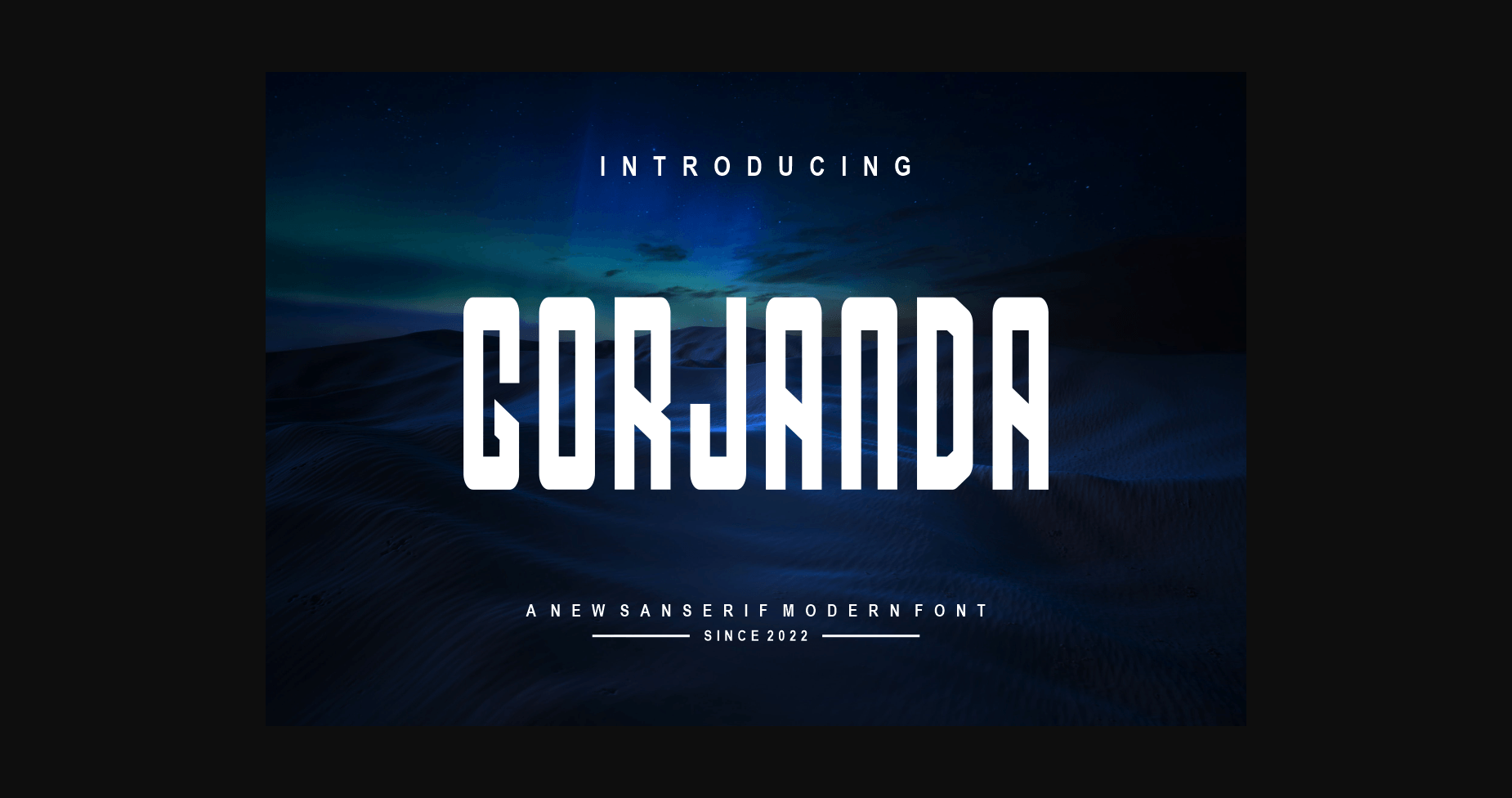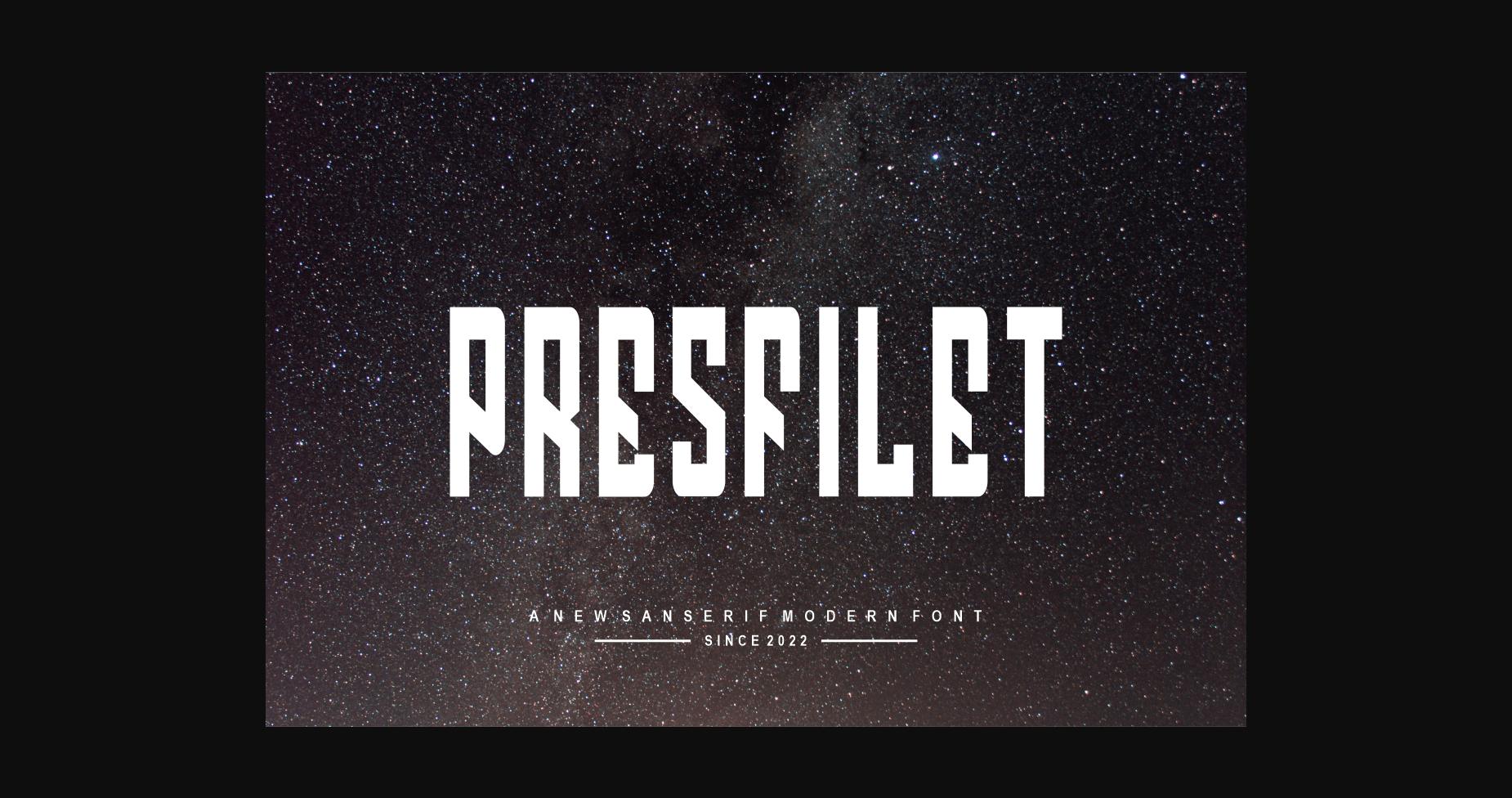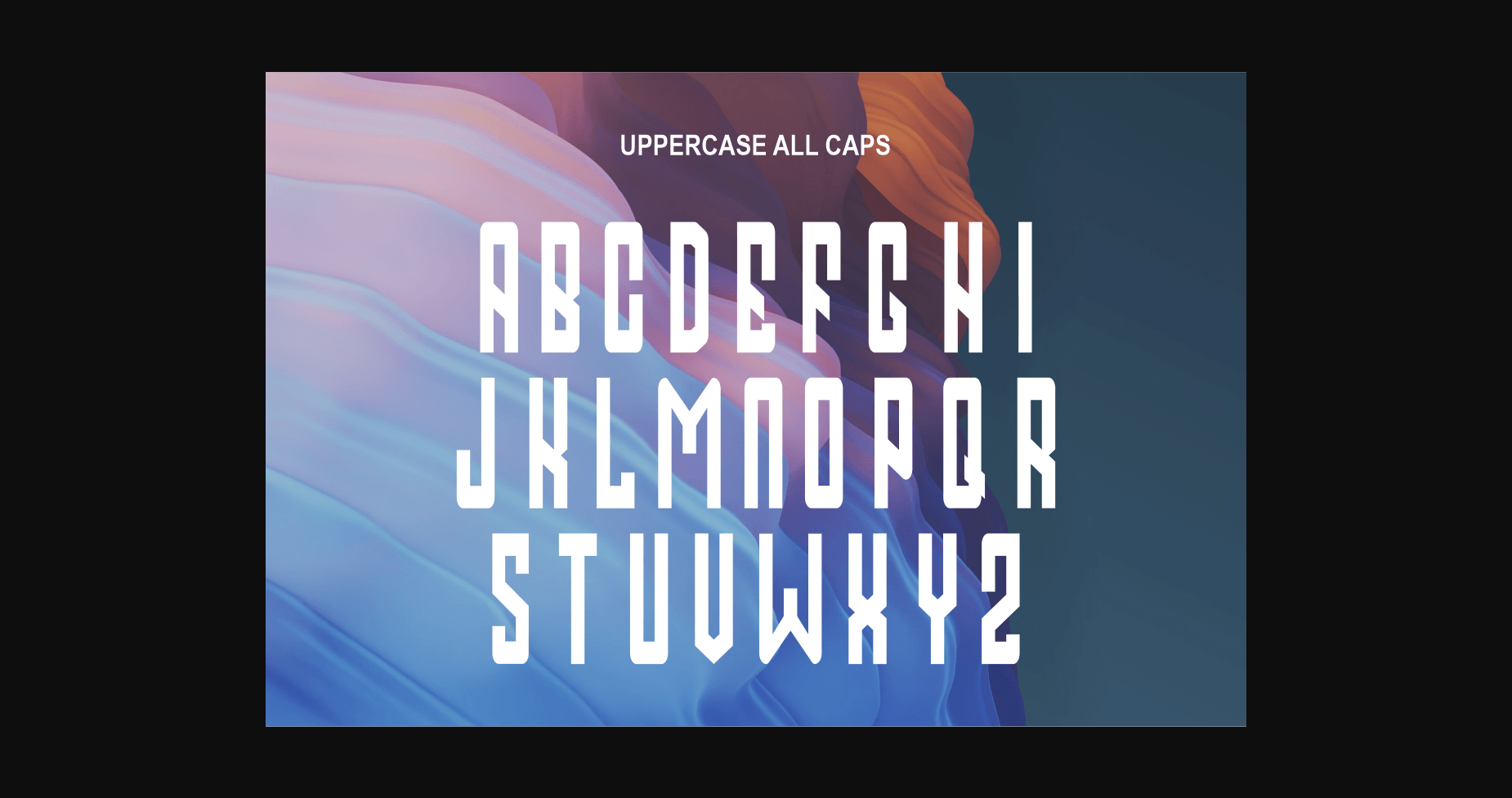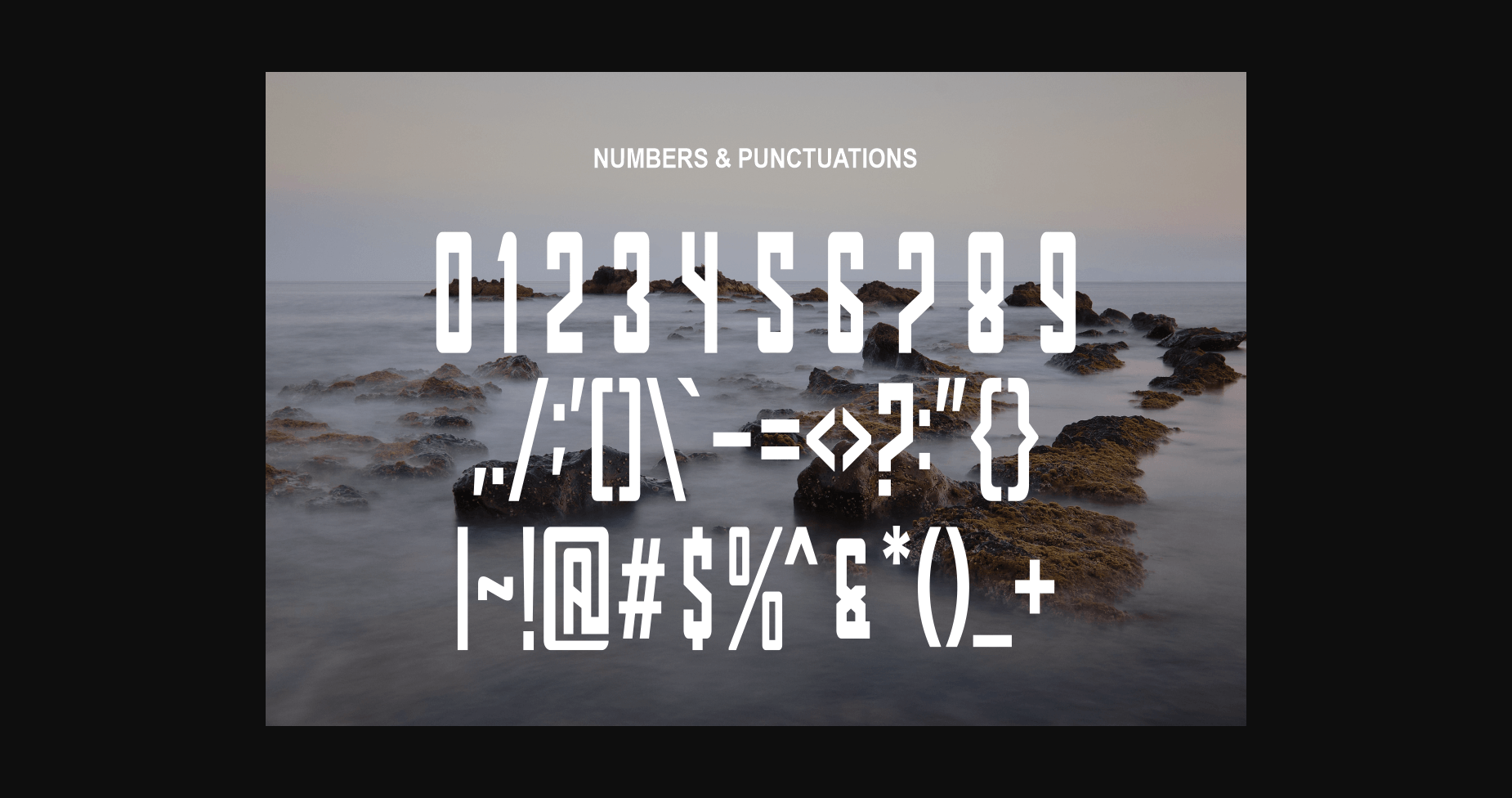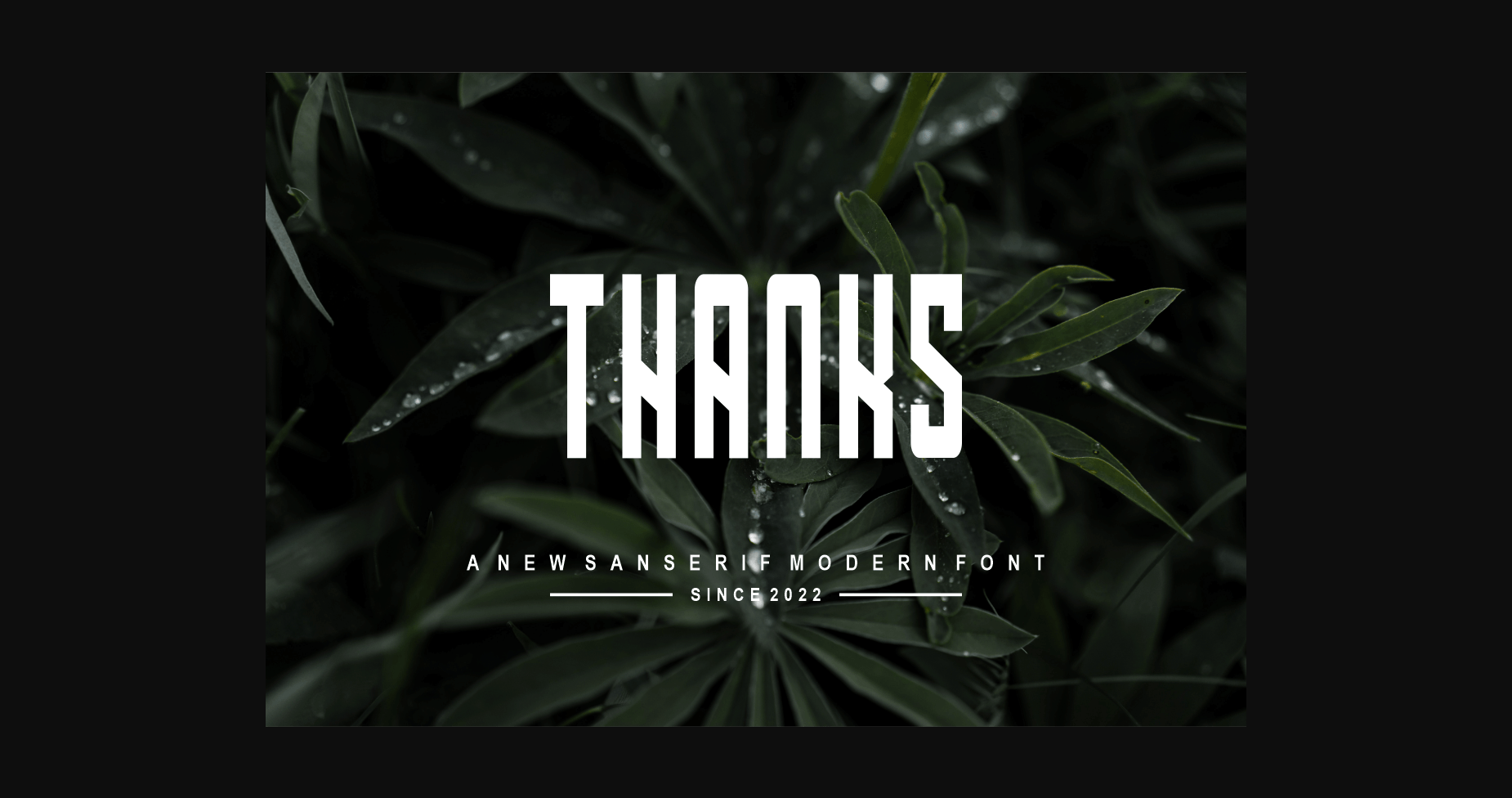
About Gorjanda Font
Gorjanda is a sweet and elegant sans serif font. It retains a classy calligraphic influence while feeling contemporary and fresh. Fall in love with it and take your project to the highest level!